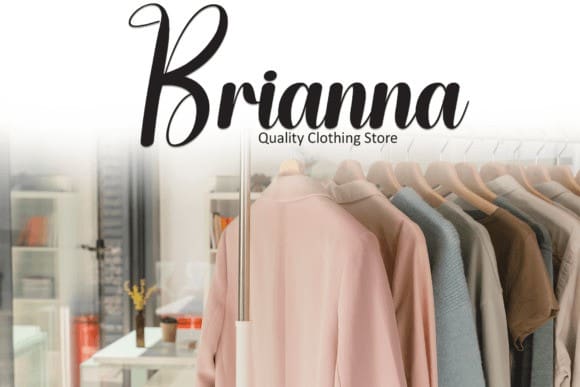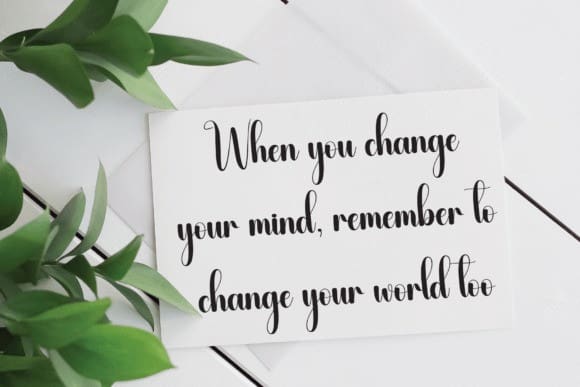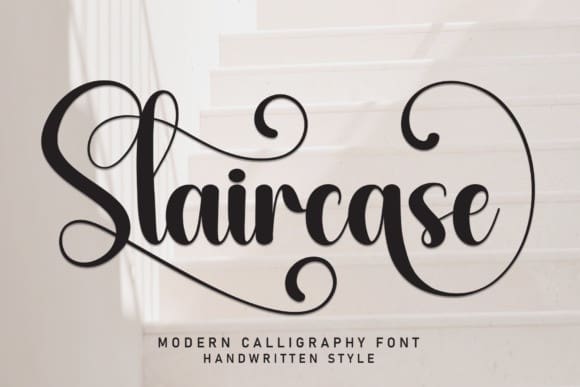
Staircase Script Font
Staircase Script Font is a sweet and friendly handwritten font. Fresh and casual, this font is ideal for writing wedding invitations, cards, or any other design that might need a lovely touch.